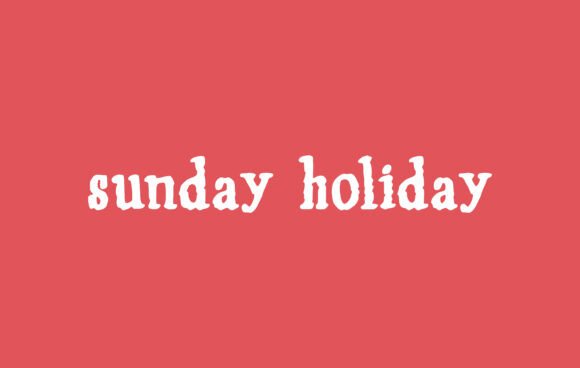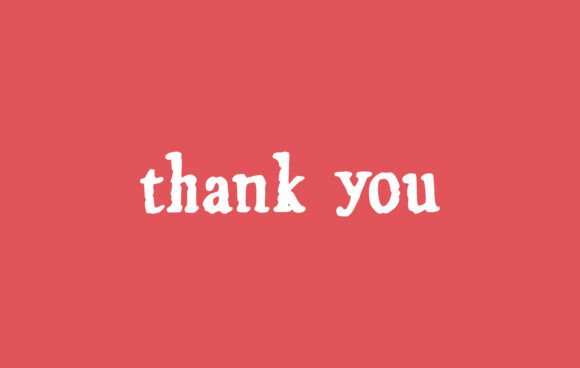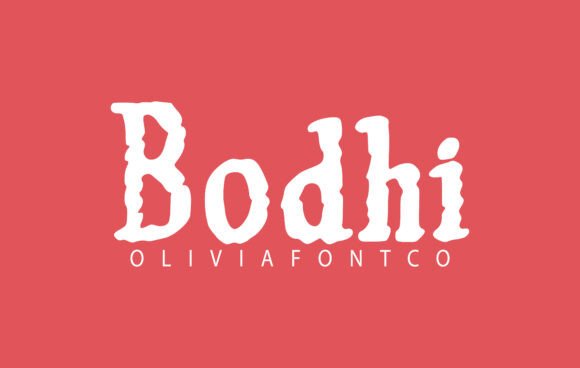
Bodhi Font: Elevate Your Designs with a Romantic Touch
In the world of typography, a well-crafted font can make all the difference in bringing your creative ideas to life. Introducing Bodhi Font, an authentic handwritten font that exudes a romantic touch, perfect for designers and crafters looking to add a personal and elegant feel to their projects.
What Makes Bodhi Font Special?
Bodhi Font is expertly designed to capture the essence of handwritten typography, boasting a unique and charming aesthetic that sets it apart from other fonts. Its romantic touch adds a touch of sophistication and whimsy, making it an excellent choice for a wide range of design applications.
Key Features of Bodhi Font
- Legibility: Bodhi Font is designed to be highly legible, making it perfect for use as both title and body text. Its clear and readable design ensures that your message is conveyed effectively, whether you’re creating a magazine headline or a social media post.
- Versatility: This font is incredibly versatile, suitable for various design projects, including magazine headlines, social media graphics, branding materials, wedding invitations, cards, and more.
- Authentic Handwritten Feel: Bodhi Font boasts an authentic handwritten feel, adding a personal touch to your designs. Its unique character makes it stand out from generic fonts, giving your projects a distinctive and artistic flair.
Use Cases for Bodhi Font
Bodhi Font’s versatility makes it an excellent choice for a multitude of design projects. Here are some use cases where Bodhi Font truly shines:
- Magazine Headlines: Add a touch of elegance and sophistication to your magazine headlines with Bodhi Font. Its romantic touch and clear legibility make it perfect for grabbing readers’ attention.
- Social Media Graphics: Elevate your social media presence with Bodhi Font. Use it to create eye-catching graphics, posts, and stories that showcase your brand’s personality.
- Branding Materials: Establish a consistent brand identity with Bodhi Font. Its unique and charming aesthetic makes it an excellent choice for logos, business cards, and other branding materials.
- Wedding Invitations: Make your wedding invitations truly special with Bodhi Font. Its romantic touch and elegant feel make it perfect for wedding stationery, save-the-date cards, and more.
- Crafting and DIY Projects: Bodhi Font is also ideal for crafters and DIY enthusiasts. Use it to add a personal touch to your handmade projects, such as cards, scrapbooking, and other paper crafts.
Tips for Using Bodhi Font Effectively
To get the most out of Bodhi Font, here are some tips to keep in mind:
- Pair with Complementary Fonts: Experiment with pairing Bodhi Font with complementary fonts to create visual interest and hierarchy in your designs.
- Play with Colors: Bodhi Font looks great in various colors, so don’t be afraid to experiment with different hues and shades to find the perfect match for your design.
- Use for Emphasis: Use Bodhi Font to draw attention to specific elements in your design, such as headlines or call-to-actions.
Bodhi Font is a versatile and charming handwritten font that can elevate your designs to new heights. Its romantic touch, legibility, and versatility make it an excellent choice for designers and crafters looking to add a personal and elegant feel to their projects. Whether you’re working on magazine headlines, social media graphics, branding materials, or crafting and DIY projects, Bodhi Font is sure to become a true favorite in your design arsenal.